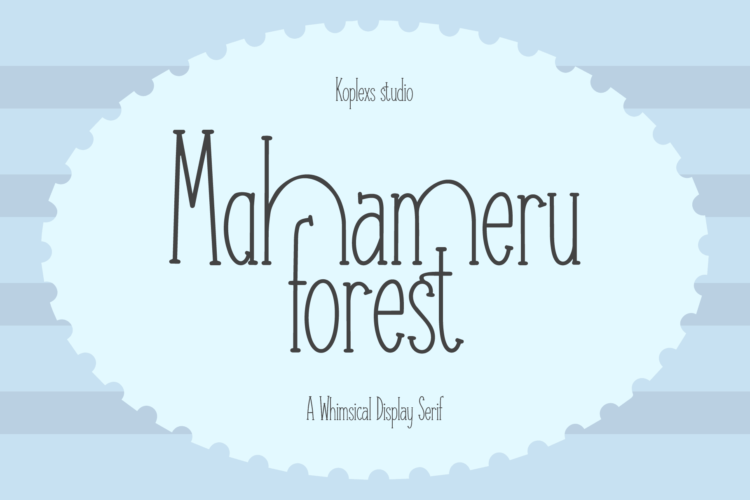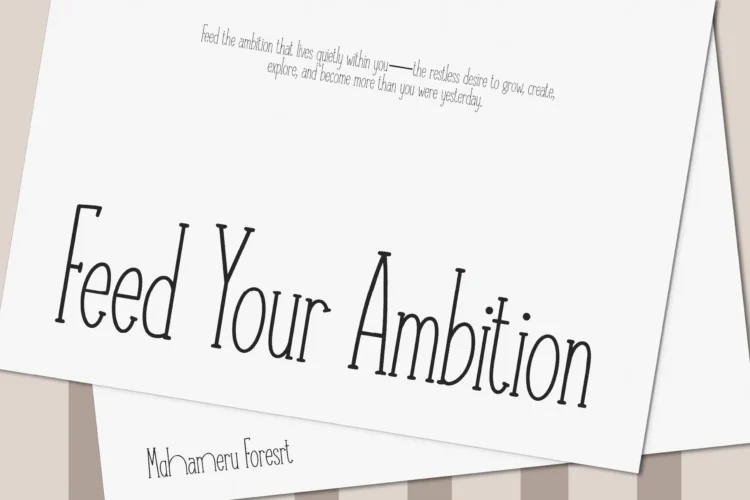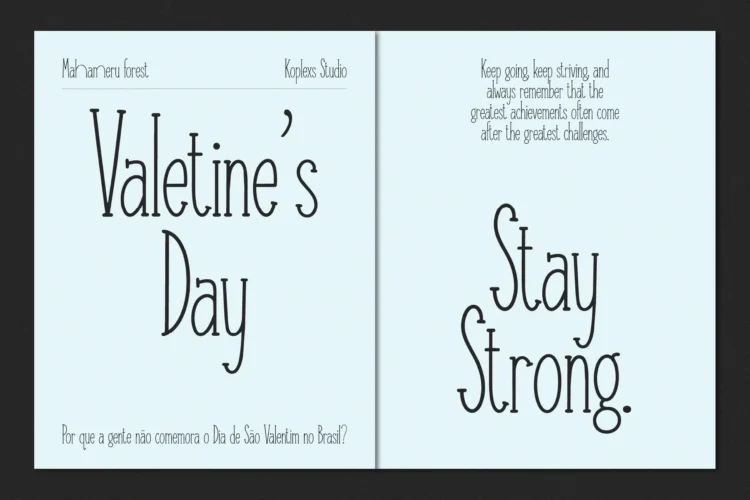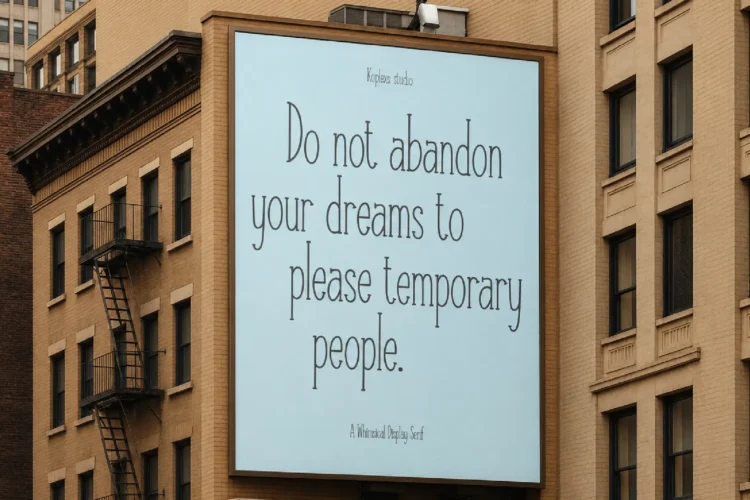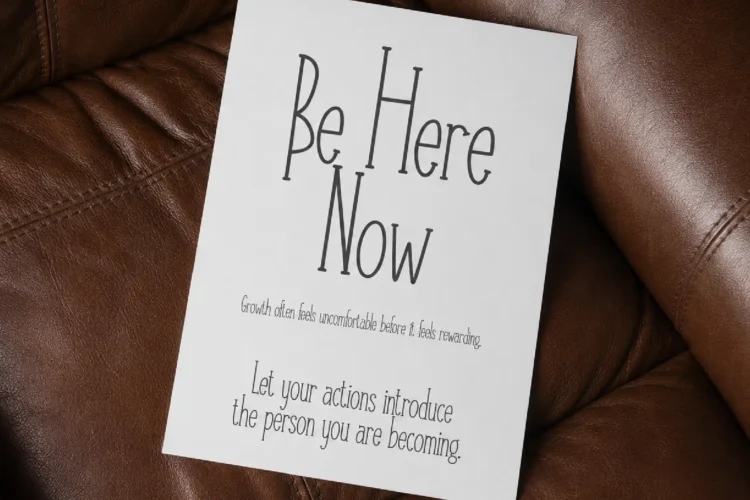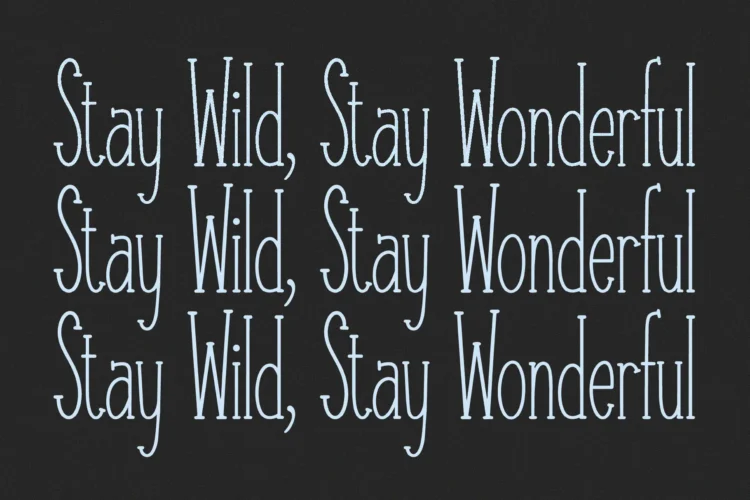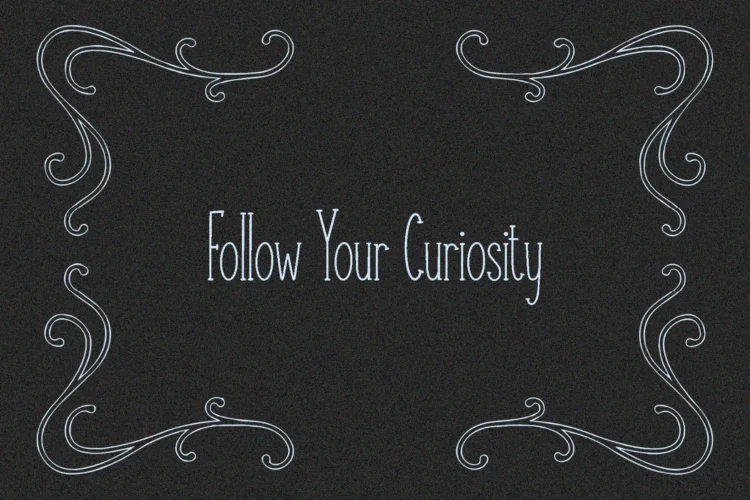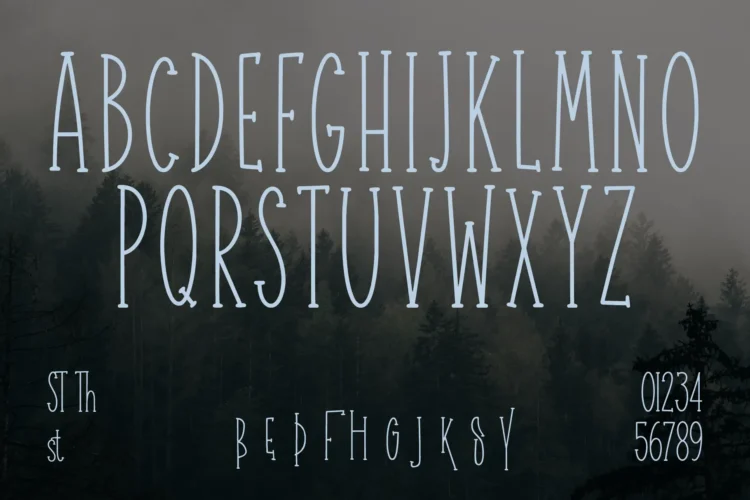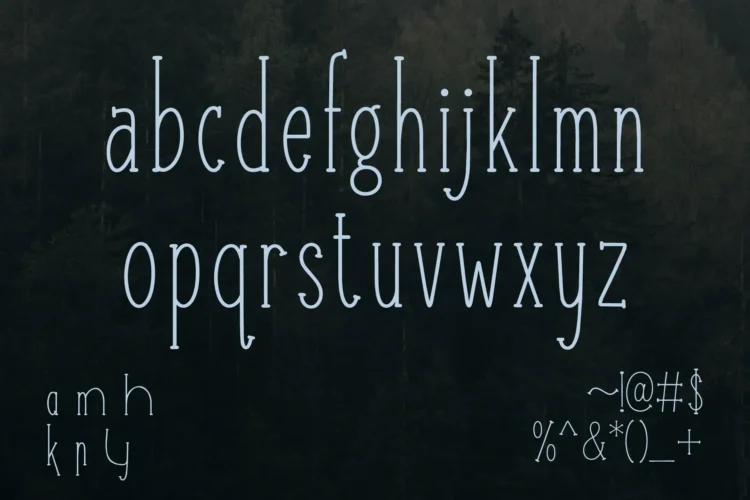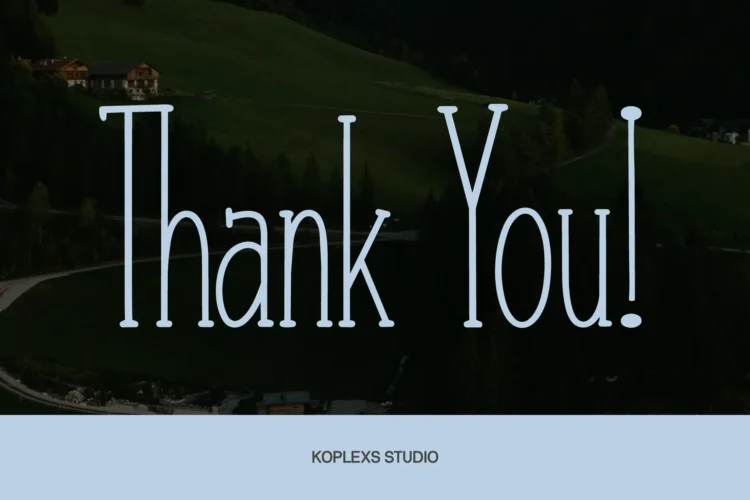
Mahameru Forest Font | Whimsical Display Serif
Mahameru Forest Font is a whimsical display serif with tall, narrow letters, slim strokes, and softly rounded serif details. Its playful curves and elongated proportions give words a gentle storybook feel, making it a lovely choice for designs that need a little character.
The charm is in the letter shapes. Long ascenders, curved tails, and decorative alternates bring movement to short phrases, while the light strokes keep the overall look airy. Use it for a thoughtful book title, a personal greeting, or a boutique brand with a warm, imaginative voice.
Perfect For These Design Styles
- Children’s book covers and storybook titles.
- Wedding invitations, greeting cards, and personal stationery.
- Boutique logos, product labels, and creative packaging.
- Quote posters, magazine headlines, and social media graphics.
Give the letters room to shine at larger sizes, and pair them with a simple text font for supporting copy.
Bring a little storybook charm to your next design with Mahameru Forest Font.